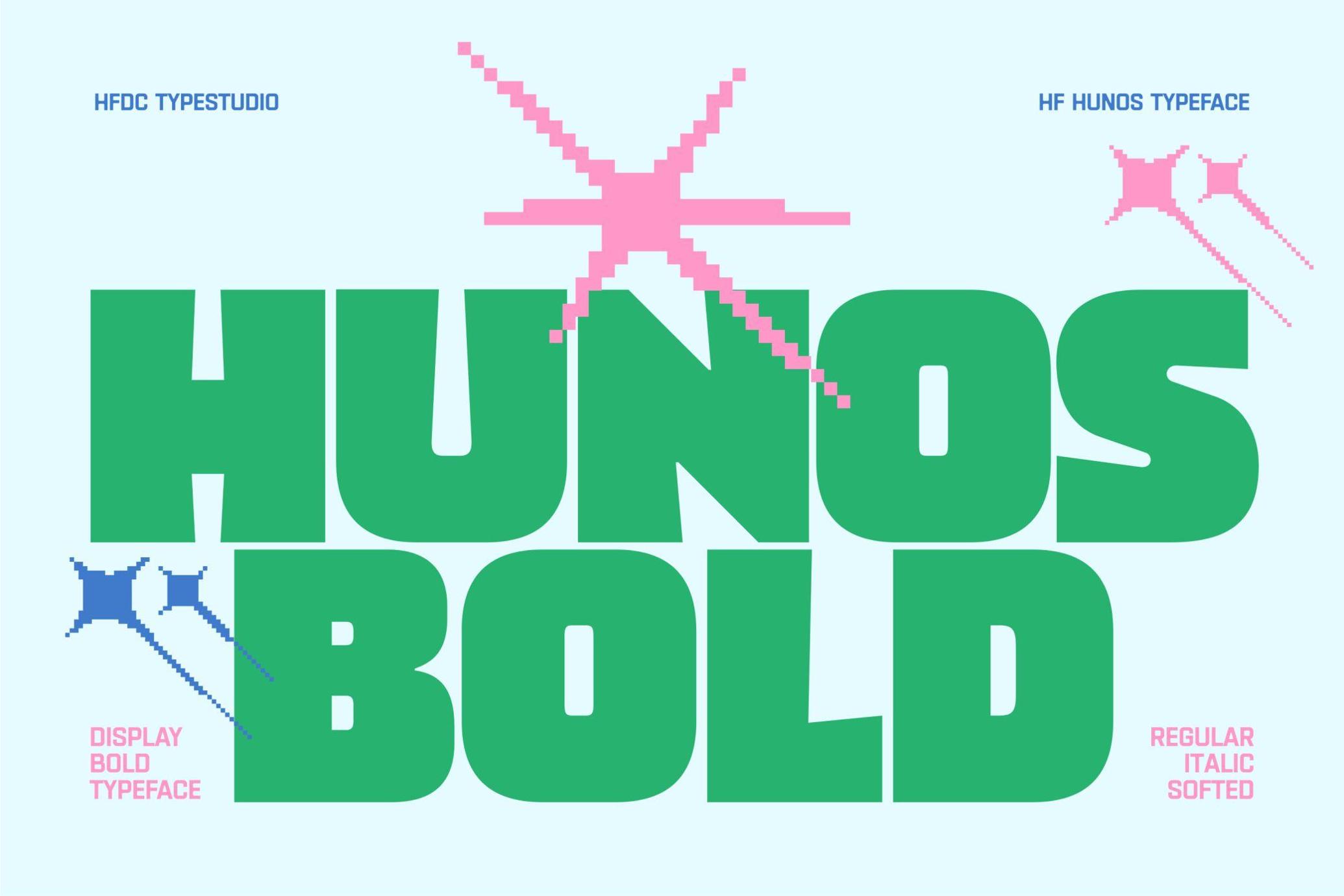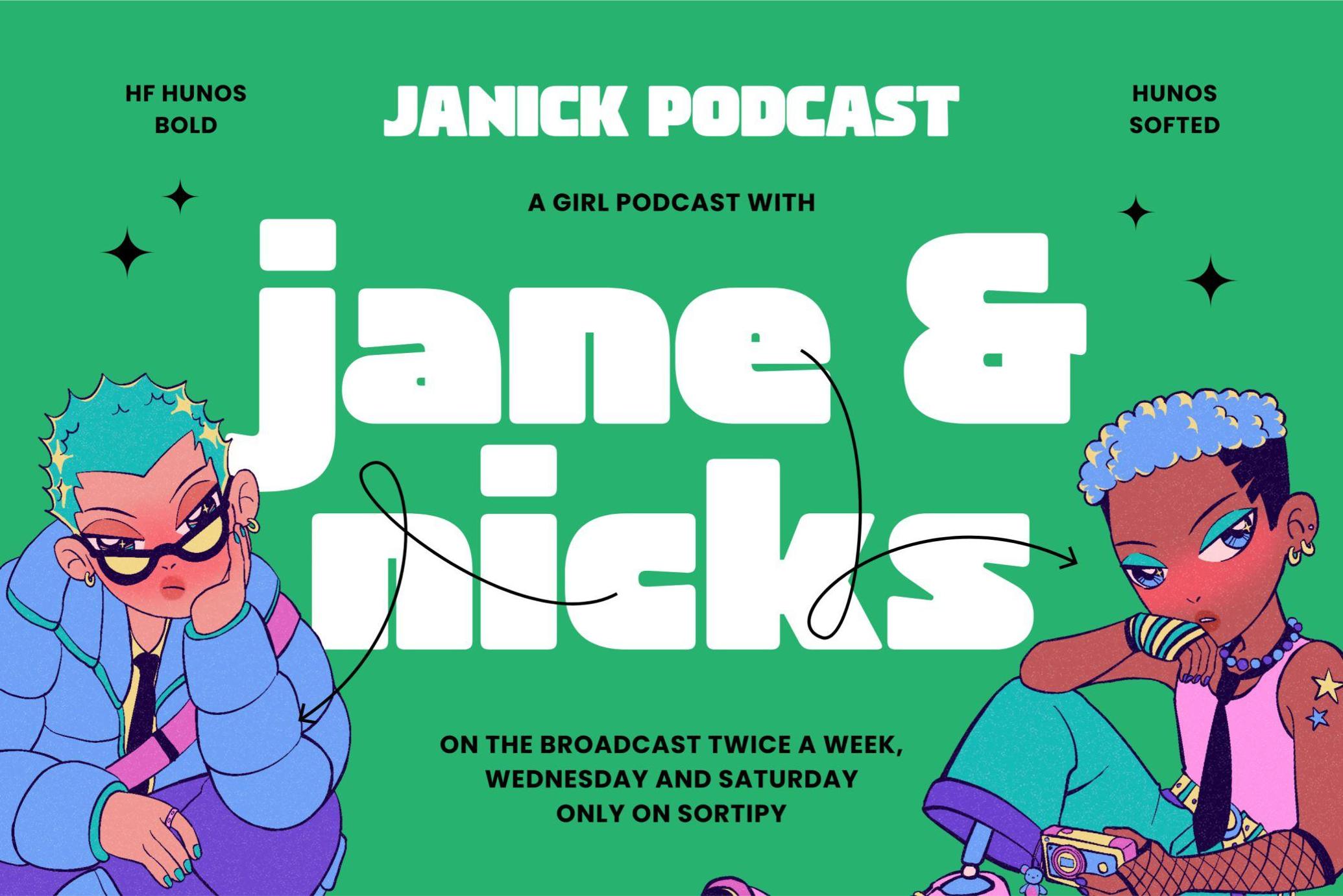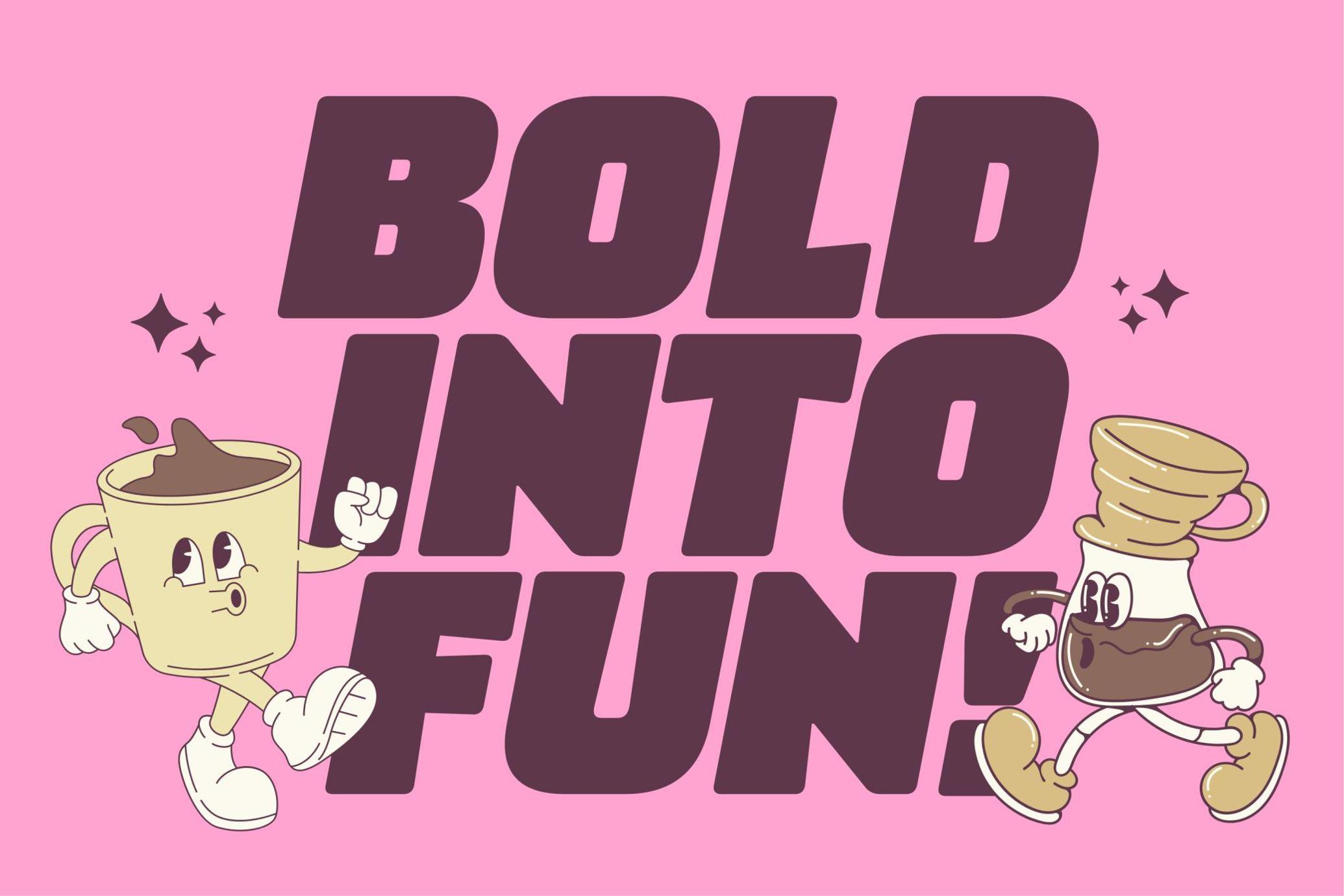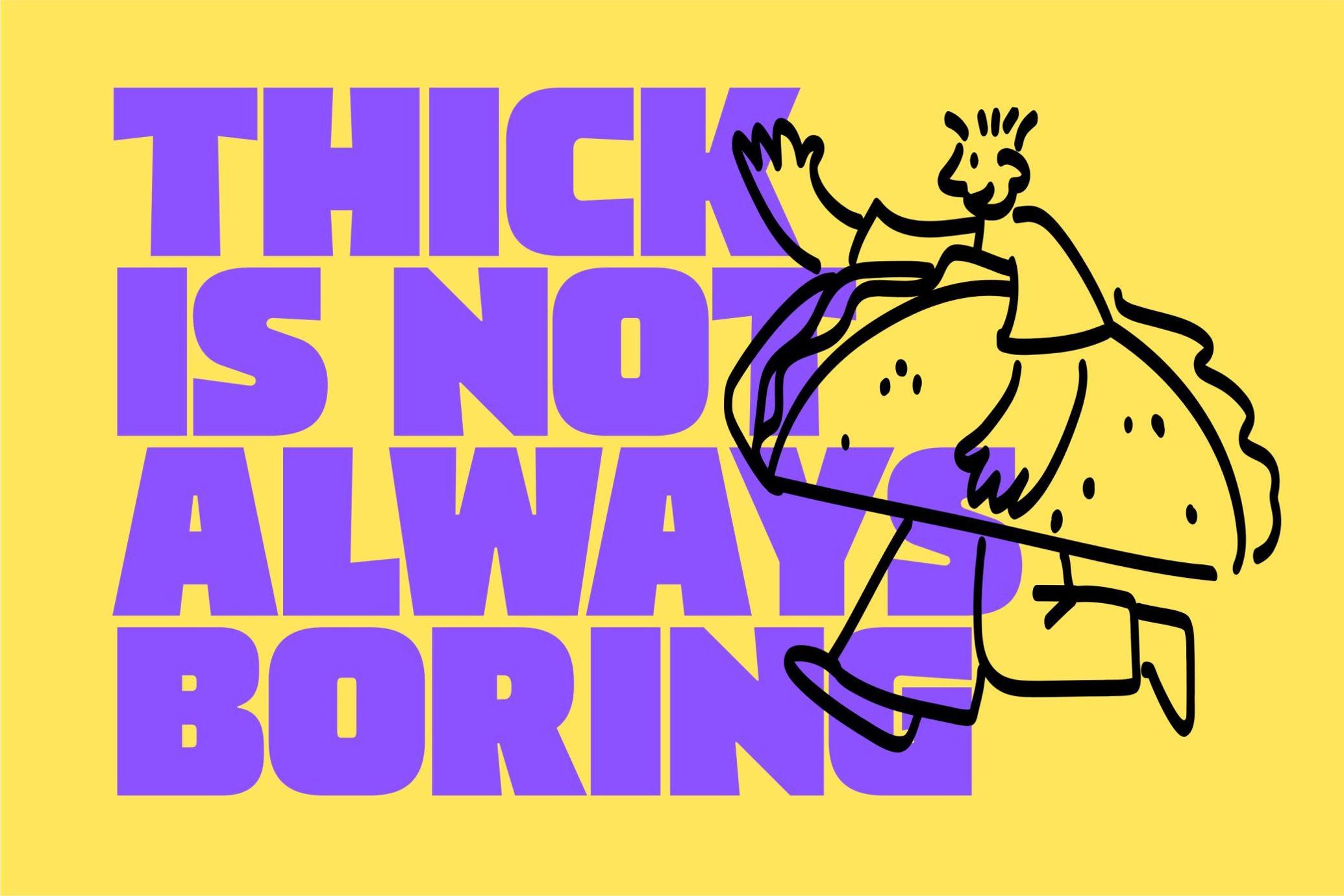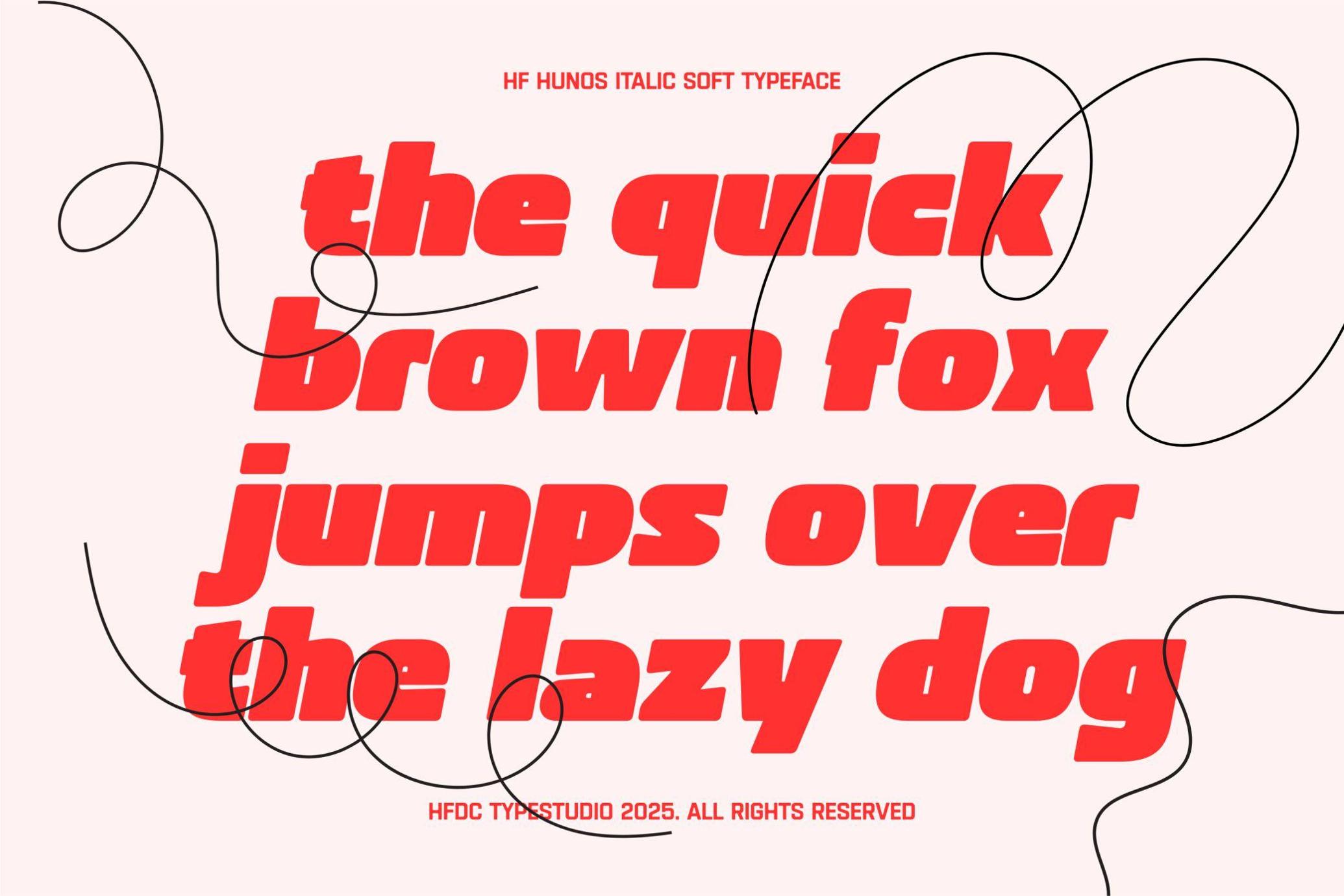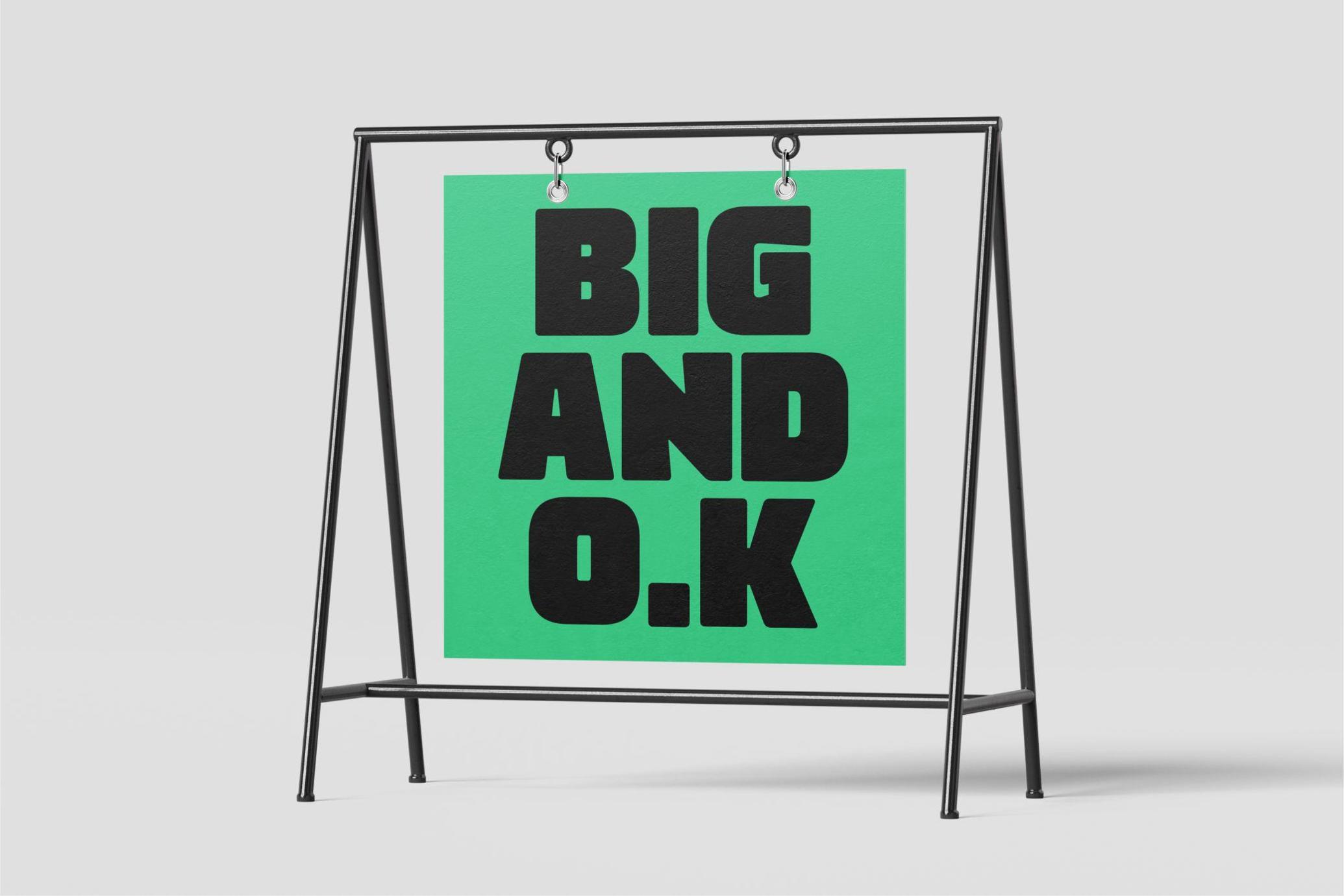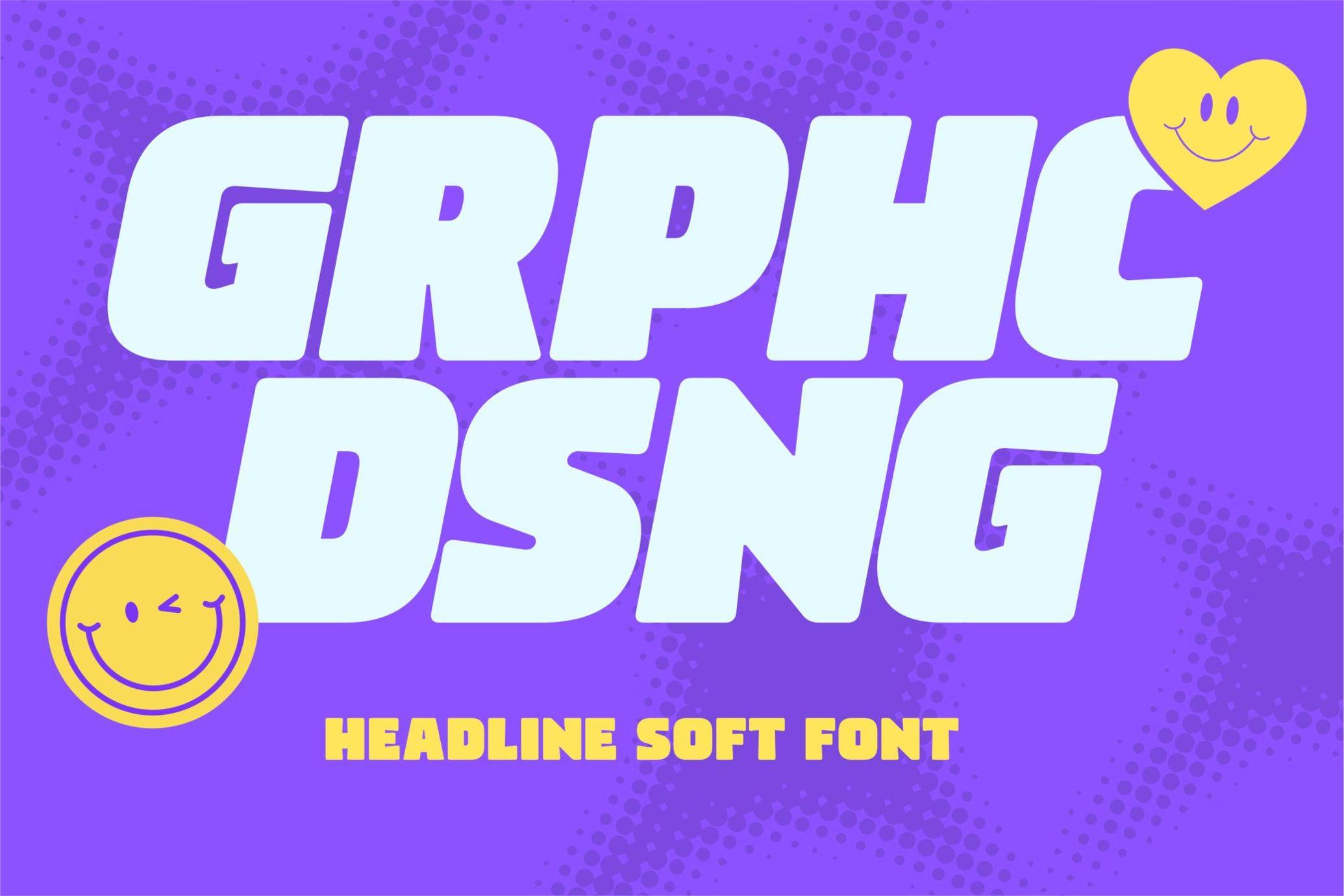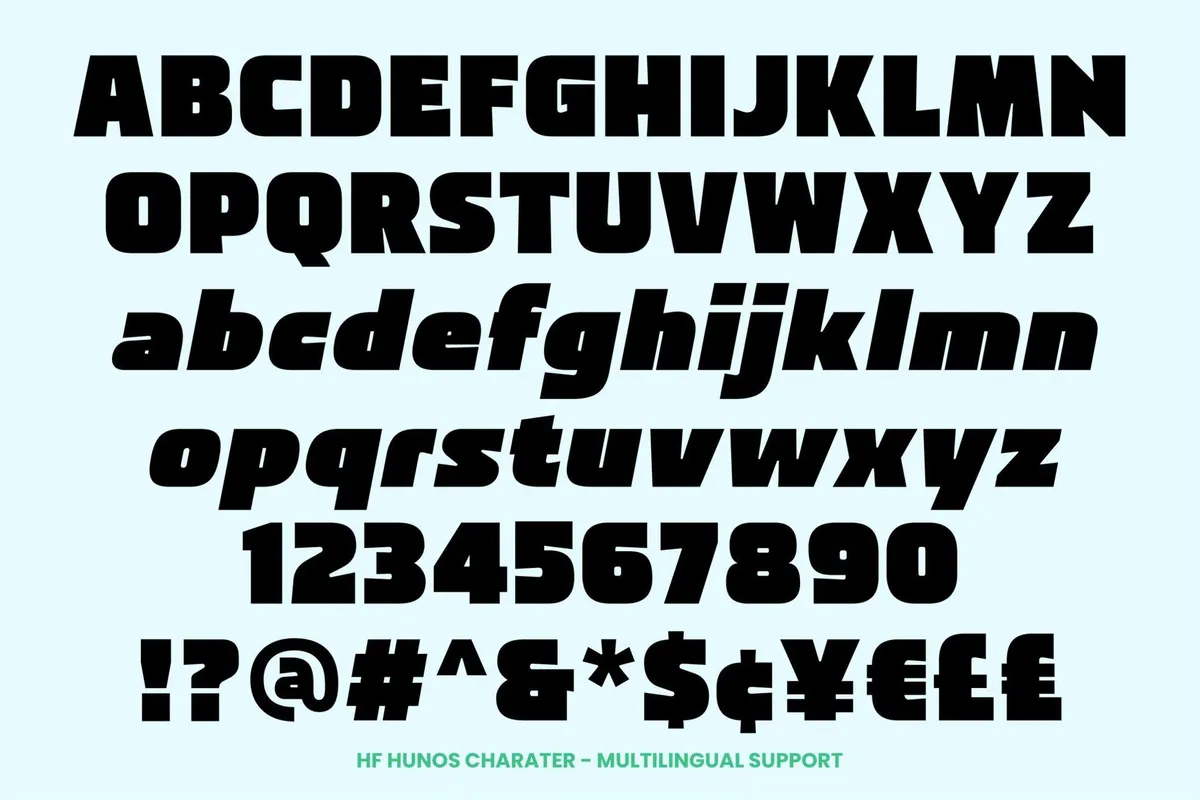
HF Hunos - Display Bold Font
HF Hunos is a bold and heavy display font created for eye-catching titles and expressive branding. This typeface combines solid geometric foundations with quirky, experimental cuts and a touch of retro-futurism.
The letterforms are boxy and robust, with intentional slants and sliced terminals that add dynamic movement to the design. HF Hunos is perfect for projects like music posters, bold logos, creative packaging, video game graphics, or anything that needs a funky retro-bold feel.
HF Hunos is available in 4 distinct styles:
• Regular: Strong and structured for confident designs
• Soft: Rounded edges for a softer, friendlier tone
• Italic: Slanted version for motion and excitement
• Italic Soft: Rounded & slanted, offering a unique personality